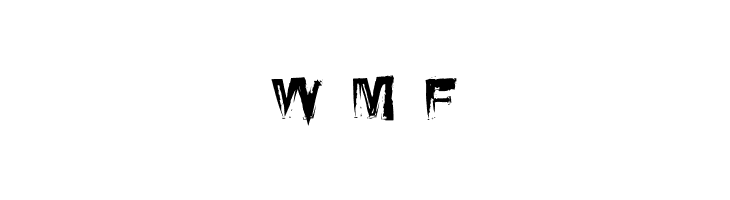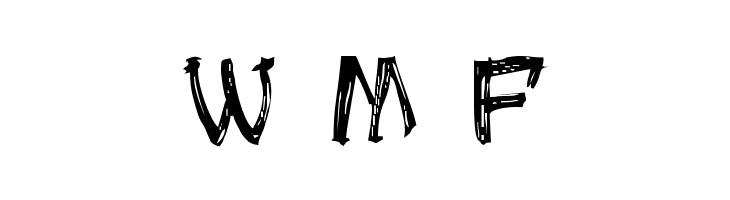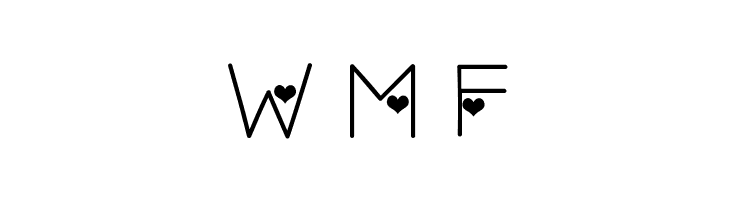
A bold, angular font with a futuristic and edgy design.
A distressed, grungy font with bold, blocky characters and a rugged texture.
A bold, grunge-inspired font with a ransom-note aesthetic.
A bold, chaotic font with a scribbled, decorative outline.
An artistic, hand-drawn font with chaotic, energetic strokes.
A bold, textured font with a hand-drawn brush style.
A bold, shattered glass effect font with fragmented, edgy characters.
A bold, decorative font with a unique layered outline effect.
A bold, spiky font with jagged edges for dynamic visual impact.
A bold, industrial-style font with a rugged, mechanical appearance.
A bold, distressed font with a grunge aesthetic and jagged edges.
A bold, fragmented font with a shattered glass effect.
A bold, distressed font with a chaotic and grunge aesthetic.
A jagged, thorny decorative font with an intense and chaotic style.
A bold, futuristic font with a digital, pixelated edge.
A bold, distressed font with a rugged, weathered appearance.
A bold, textured font with a jagged, hand-drawn appearance.
A distressed, grungy font with a bold, weathered appearance.
A bold, distressed font with a grungy, textured appearance.
A playful font with heart motifs embedded in each character, perfect for romantic themes.
A bold, geometric 3D font with a futuristic and dynamic style.
A clean, modern sans-serif font with a light weight and rounded edges.
A playful, retro-inspired font with characters encased in lava lamp shapes.